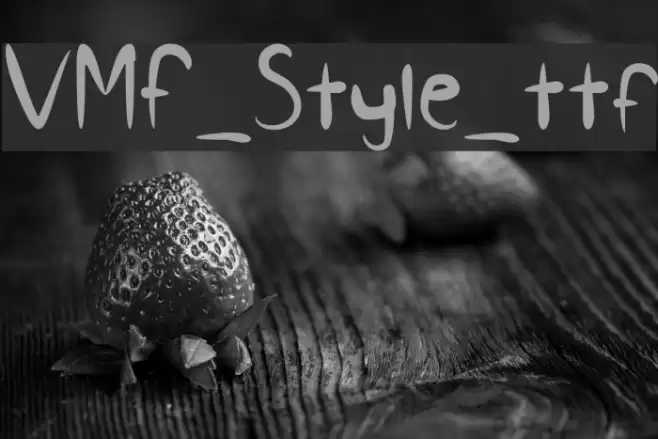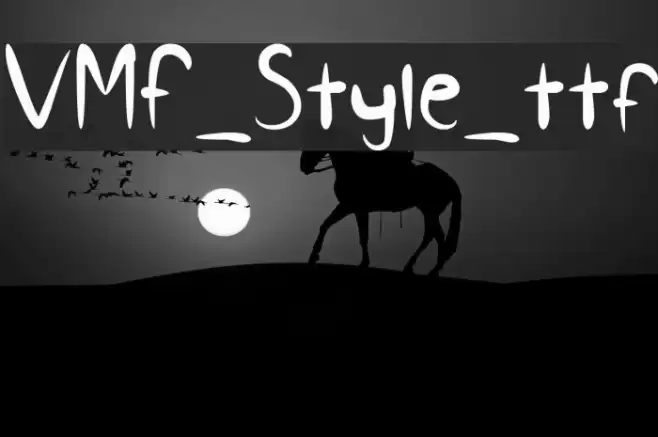
VMF_Style_ttf Font
VMF_Style_ttf Description
This font features a playful and whimsical design, characterized by its irregular and flowing letterforms. The uppercase letters are bold and slightly tilted, giving a dynamic and energetic feel. The lowercase letters maintain a consistent style, with rounded edges and a casual, handwritten appearance. The numerals are similarly styled, with a quirky and informal look. Special characters are creatively designed, adding to the overall playful aesthetic. This font is ideal for projects that require a fun and lively touch, such as children's books, party invitations, or playful branding.
A playful and whimsical font with irregular, flowing letterforms from Uncategorized fonts.
- Proposed Projects: Children's books, party invitations, playful branding, casual posters.
- Overall Style: Playful
- Use Case: Headlines, Logos, Invitations